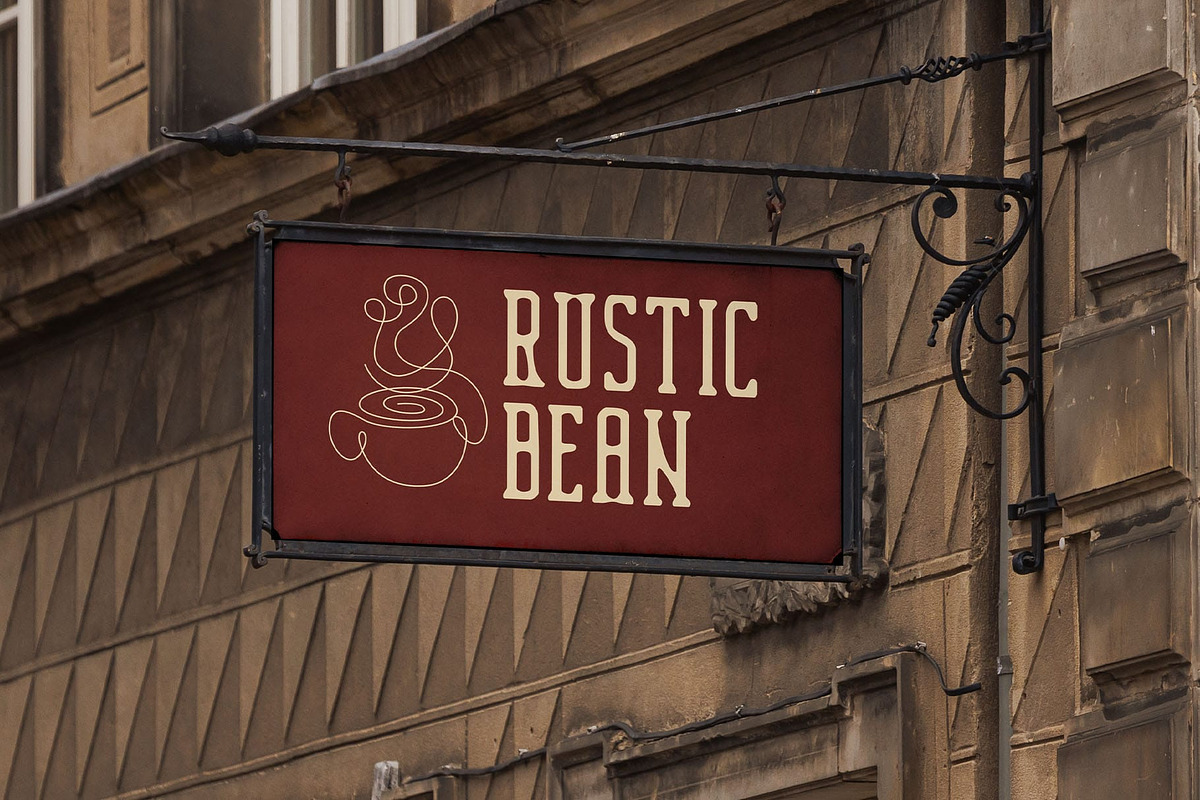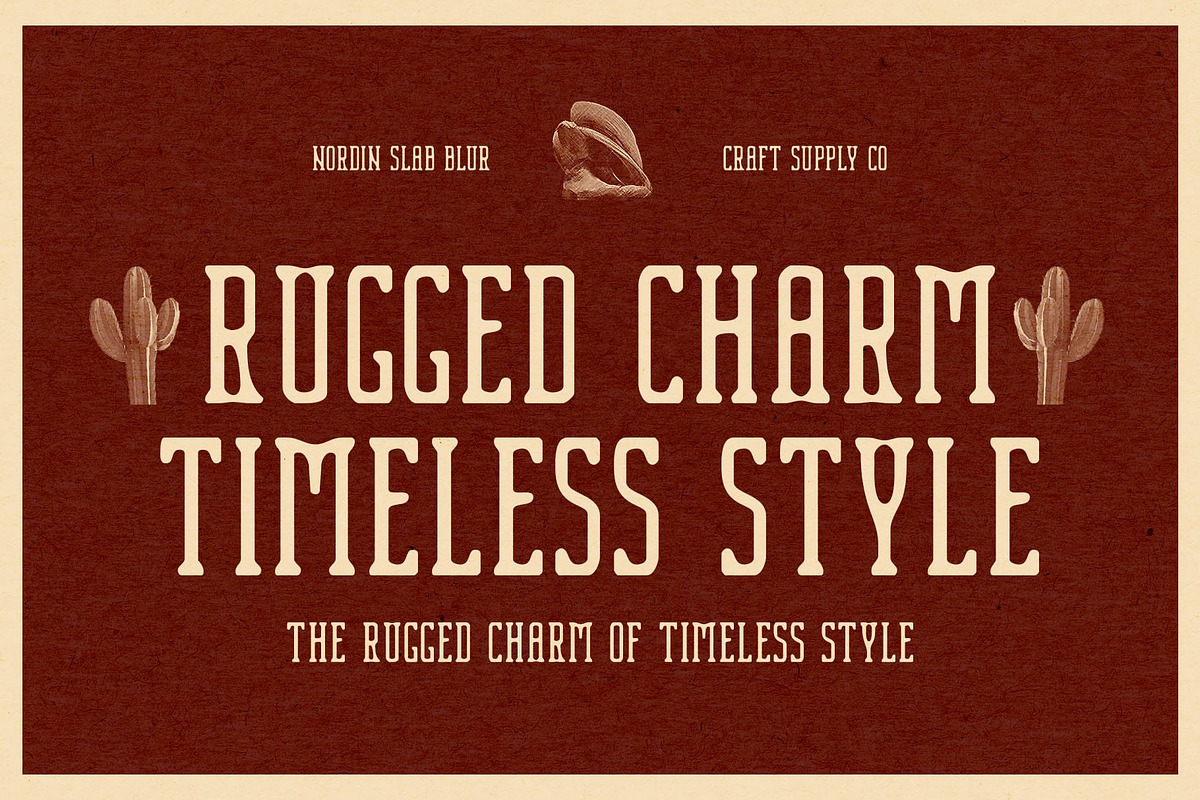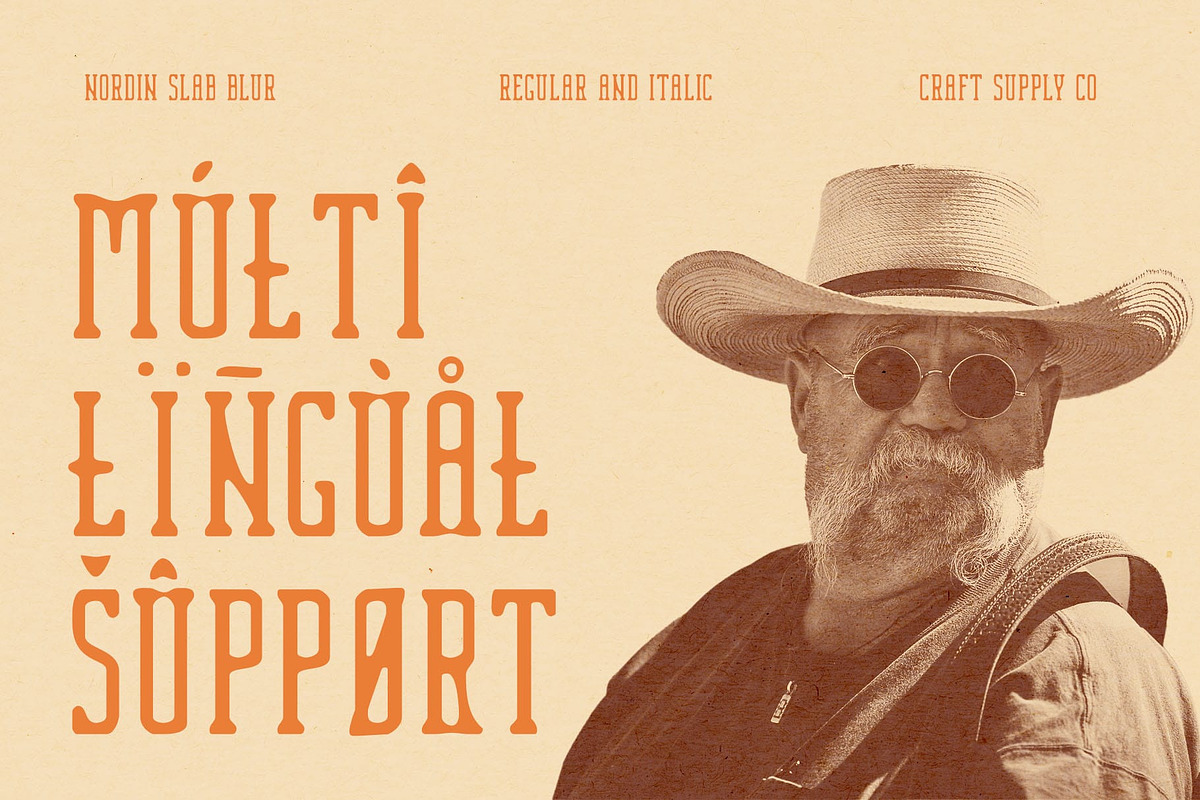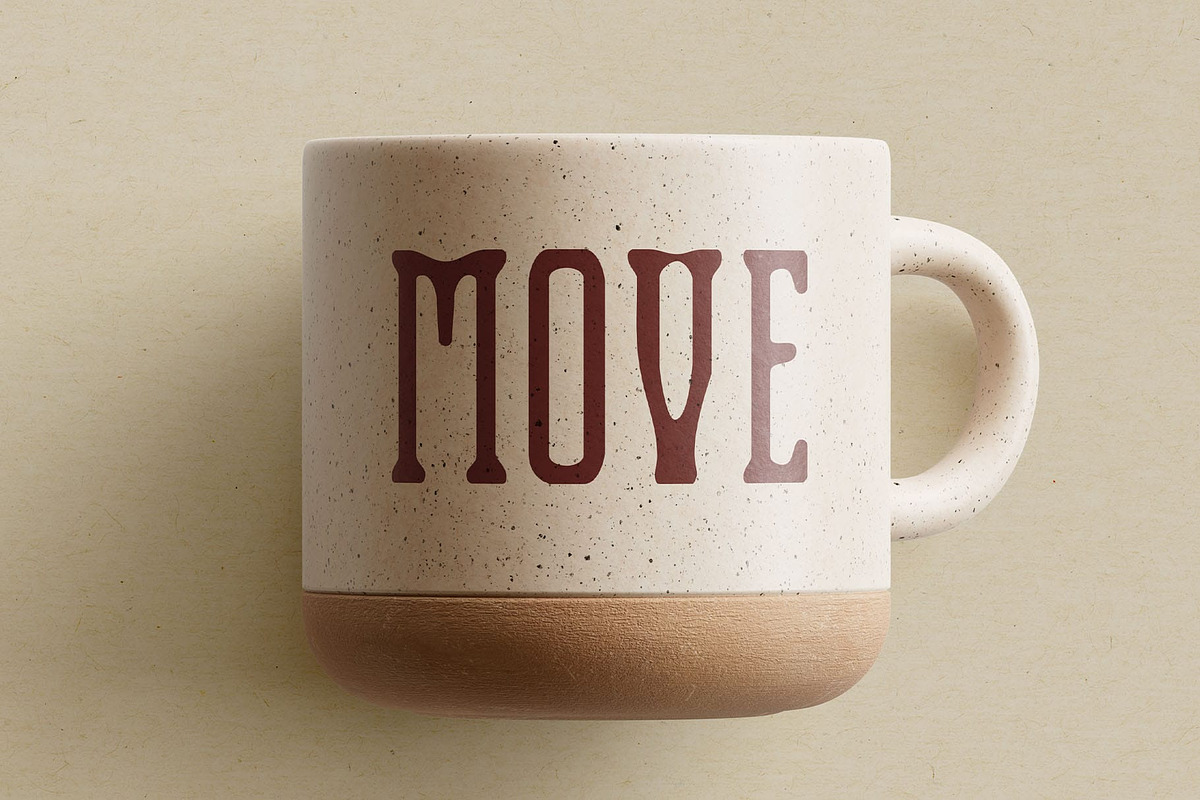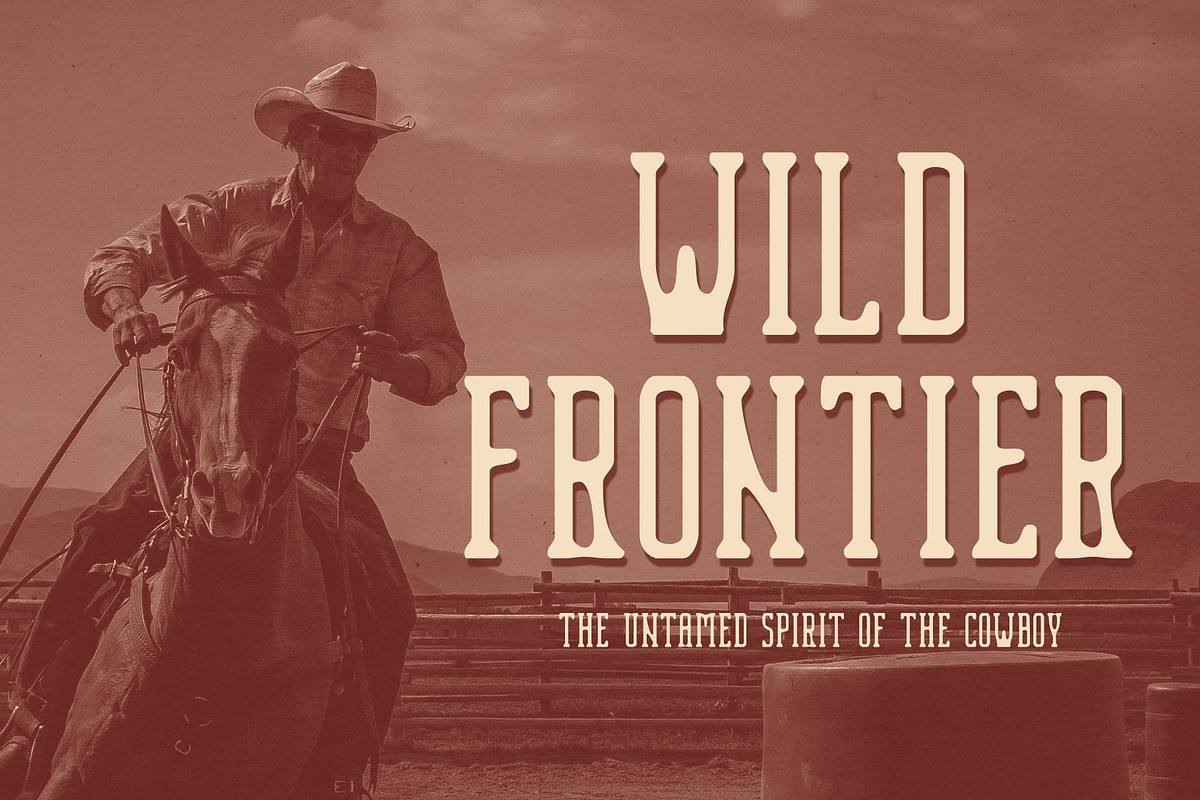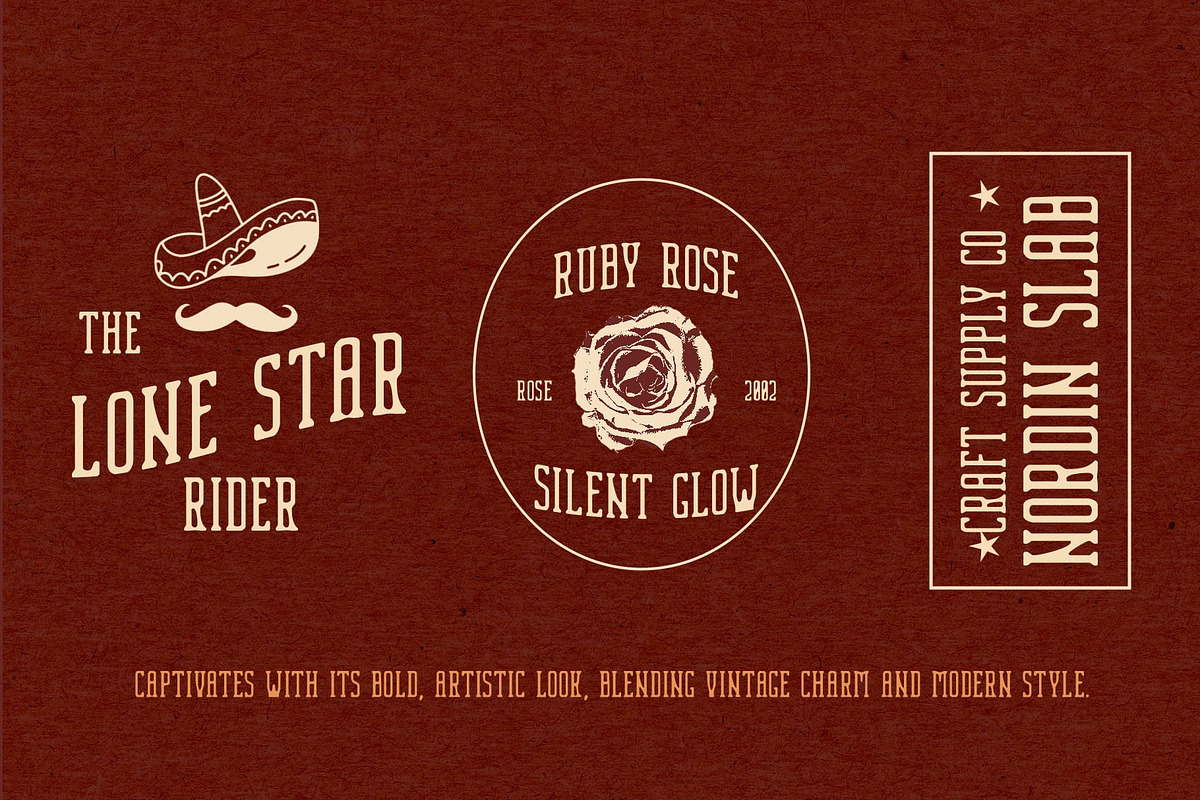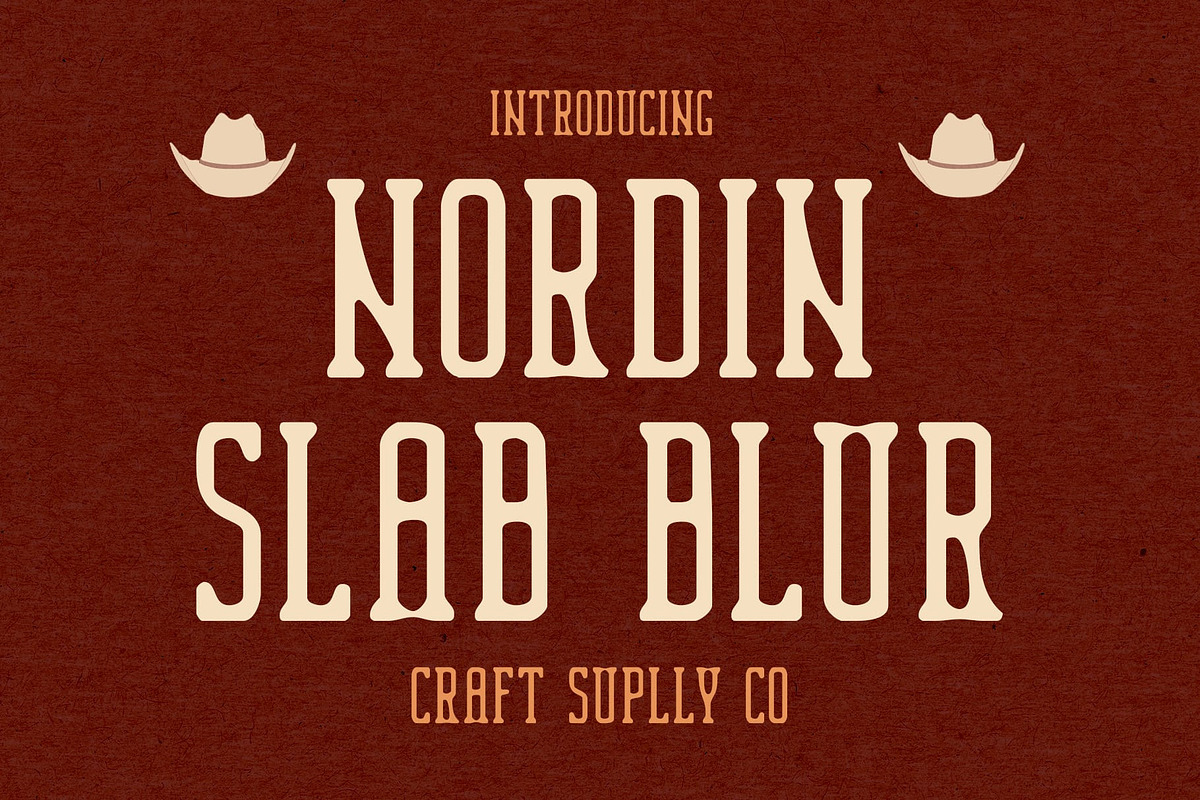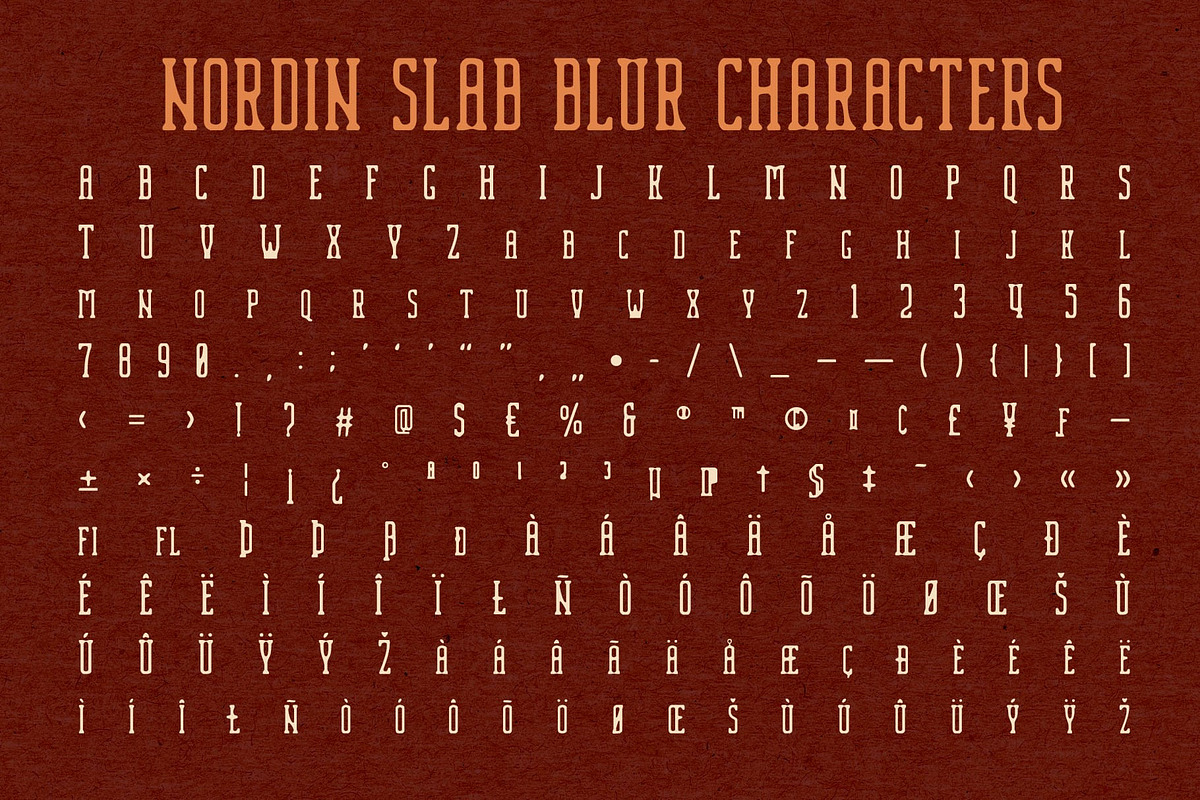
Nordin Slab Blur
Nordin Slab Blur Font – A Bold Fusion of Strength and Artistry
Modern Slab Serif with a Condensed Shape Nordin Slab Blur is a contemporary slab serif font that combines bold structure with a timeless appeal. Its condensed proportions enhance readability while maintaining a strong, confident presence. Designed for impactful headlines and standout typography, this font brings a classic yet modern aesthetic to any project.
Blur Effect for a Subtle Artistic Touch What sets Nordin Slab Blur apart is its soft blur effect, adding a layer of depth and visual intrigue. This effect gives the font an elegant, slightly distressed look, making it versatile for both contemporary and vintage-inspired designs. The fusion of sharp slab serifs with a softened blur creates a unique contrast that elevates the font’s artistic value.
Ideal for Premium and Editorial Design Perfect for luxury branding, magazine layouts, modern packaging, and high-end advertising, Nordin Slab Blur exudes sophistication with a creative edge. Whether used in logo design, fashion editorials, or premium product branding, it delivers a bold yet refined impression.
Classic Meets Modern Vintage Aesthetic By blending structured slab serif elements with an experimental blur, Nordin Slab Blur captures the essence of modern vintage typography. It’s the ideal choice for designers seeking a font that balances tradition with contemporary artistry, ensuring an eye-catching and memorable typographic experience.